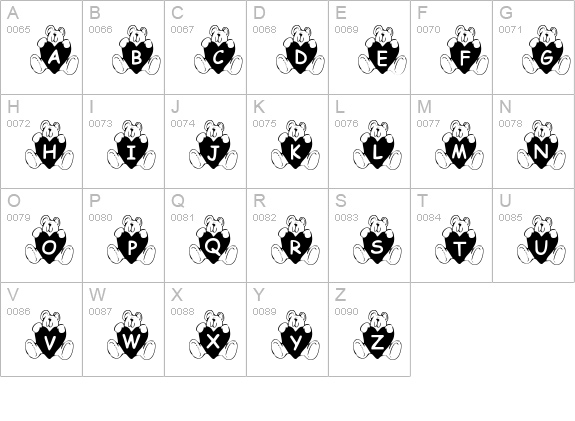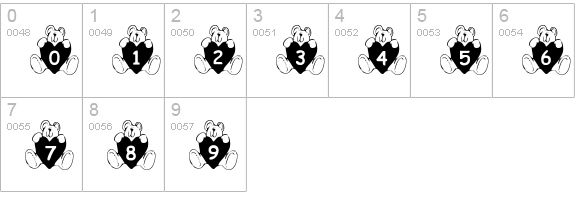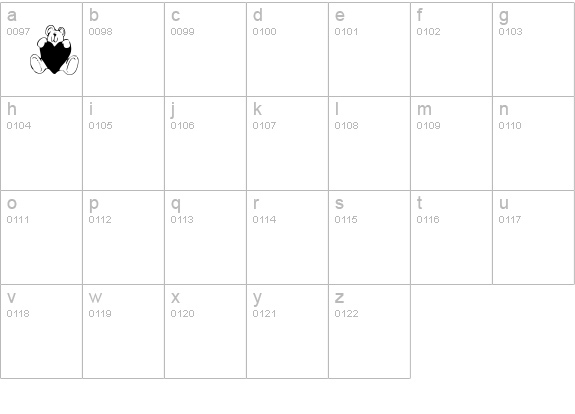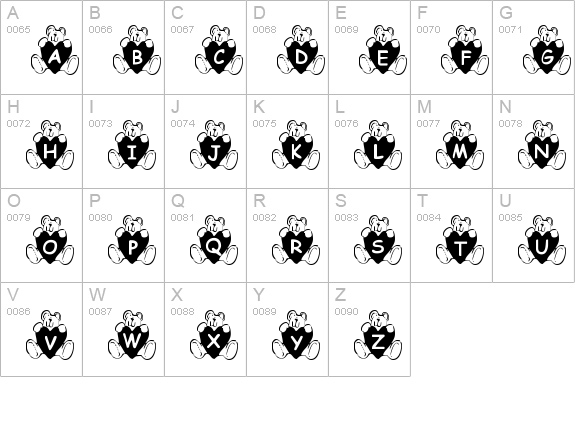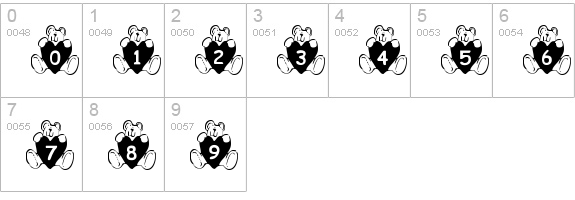
Summer's BearHearts Font Details
Summer's BearHearts font is a whimsical and charming typeface that exudes warmth and friendliness. Its soft curves and playful letterforms give off a cozy, handcrafted feel that is perfect for adding a touch of personality to your designs. This font is ideal for invitations, greeting cards, posters, and other creative projects where a touch of whimsy is needed. The best part? Summer's BearHearts font is completely free to download at FontsMarket.com. With just a few clicks, you can add this delightful font to your collection and start using it in your projects right away. Whether you're a seasoned designer looking for a new favorite font or a beginner wanting to experiment with different styles, Summer's BearHearts font is sure to inspire and delight. Download it today and bring a touch of magic to your designs!